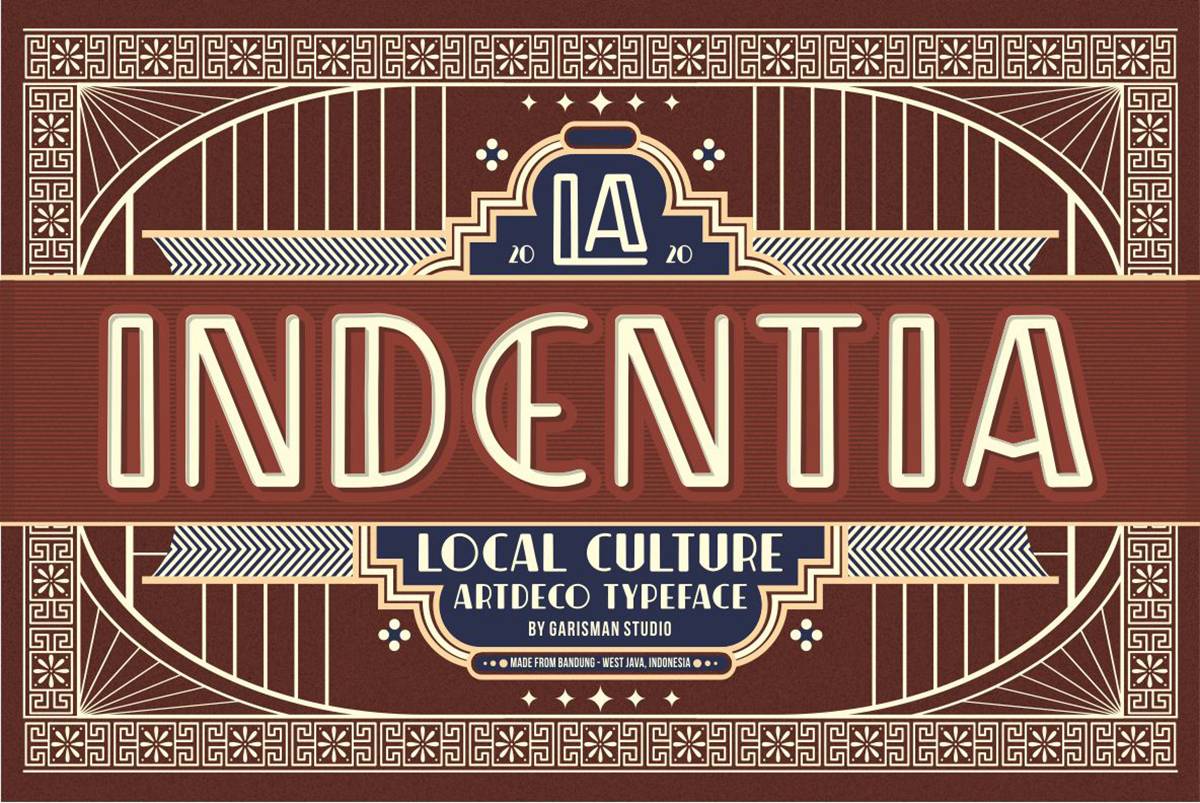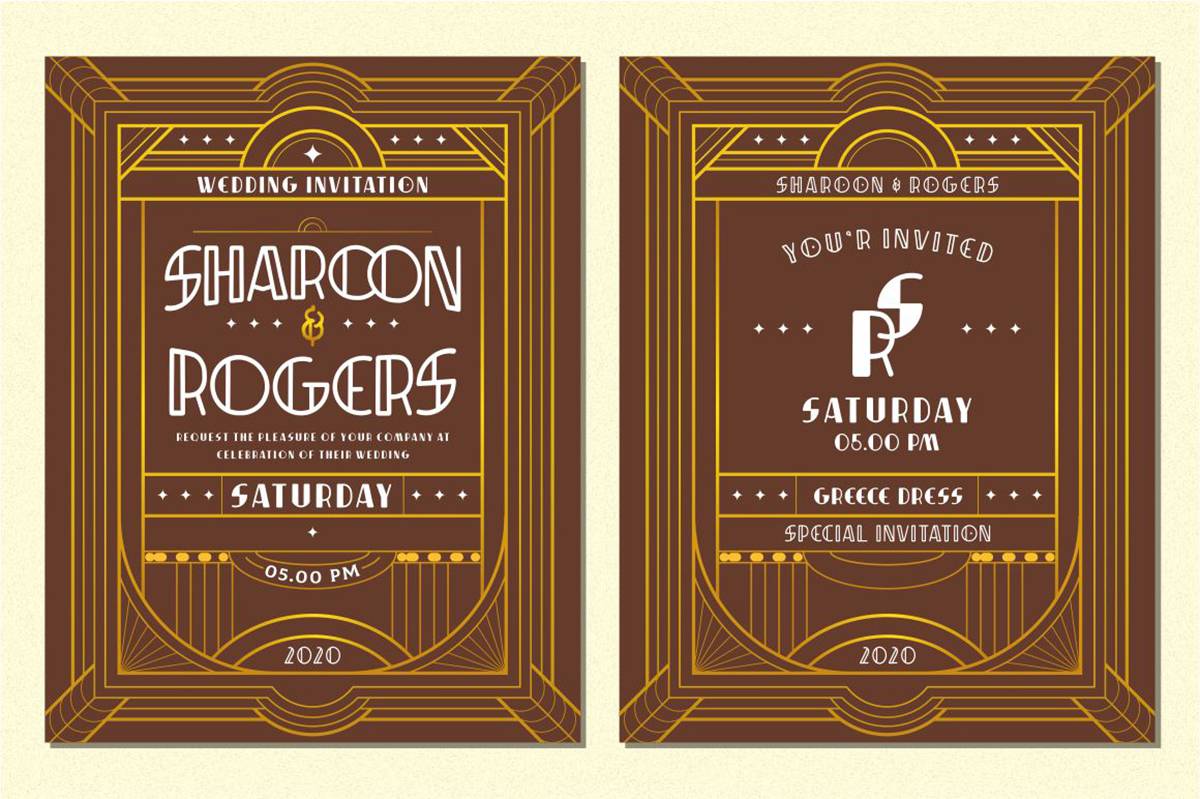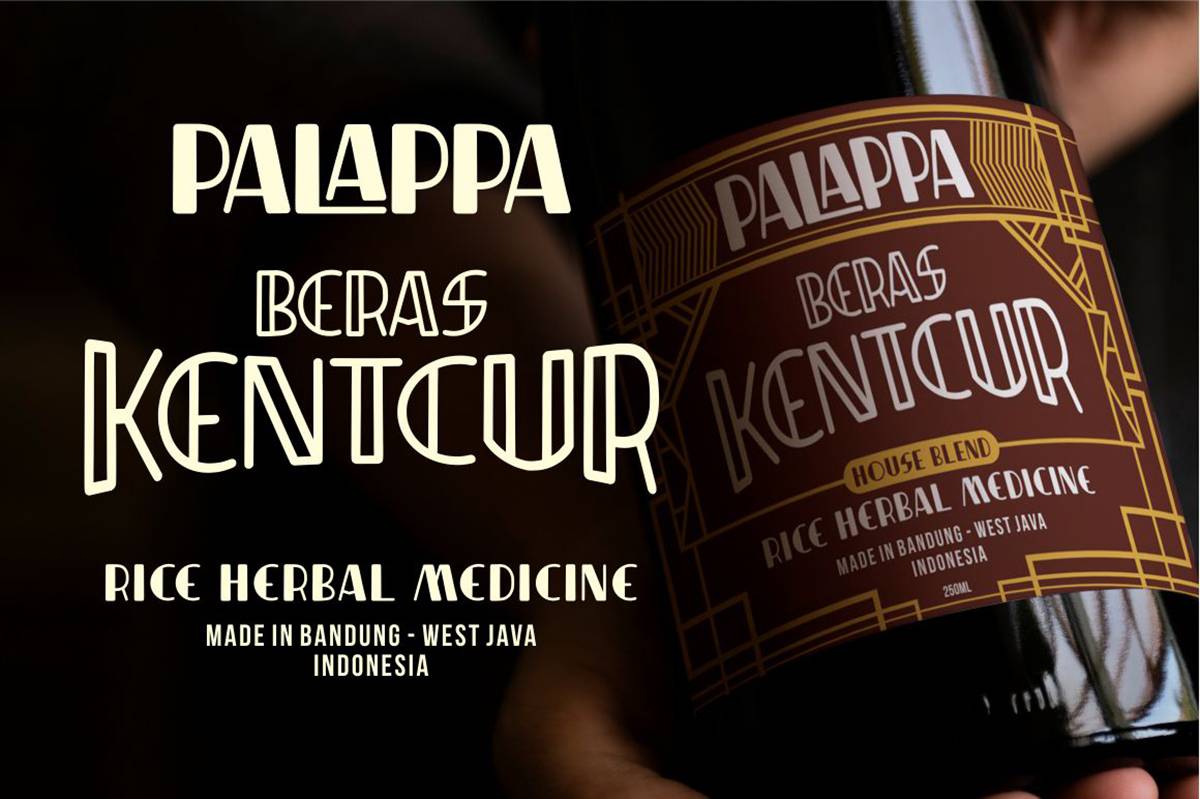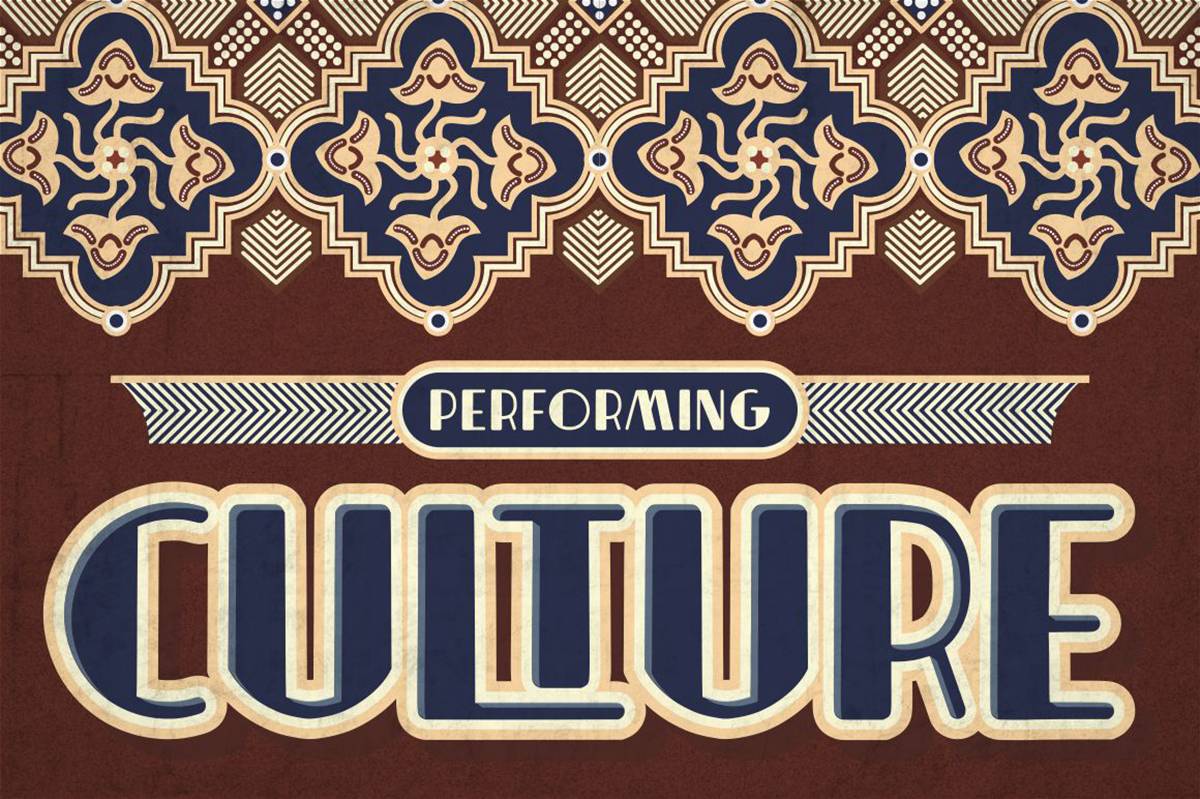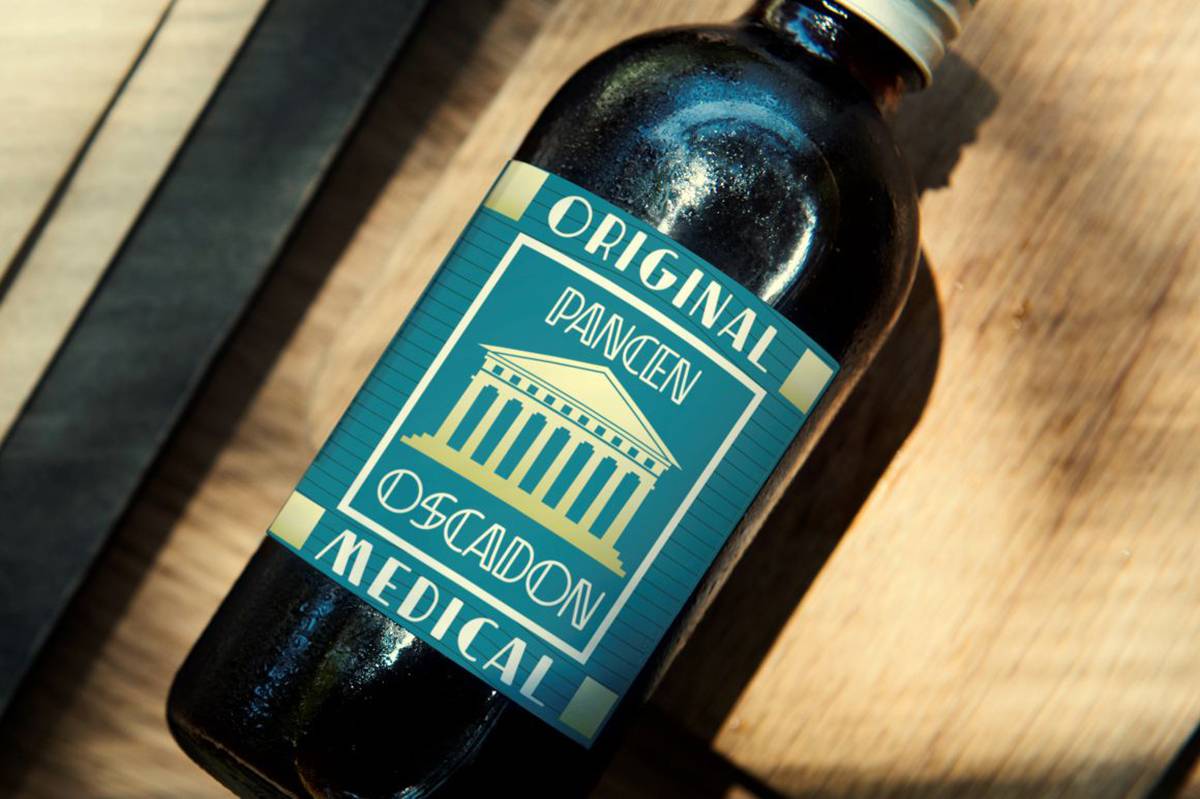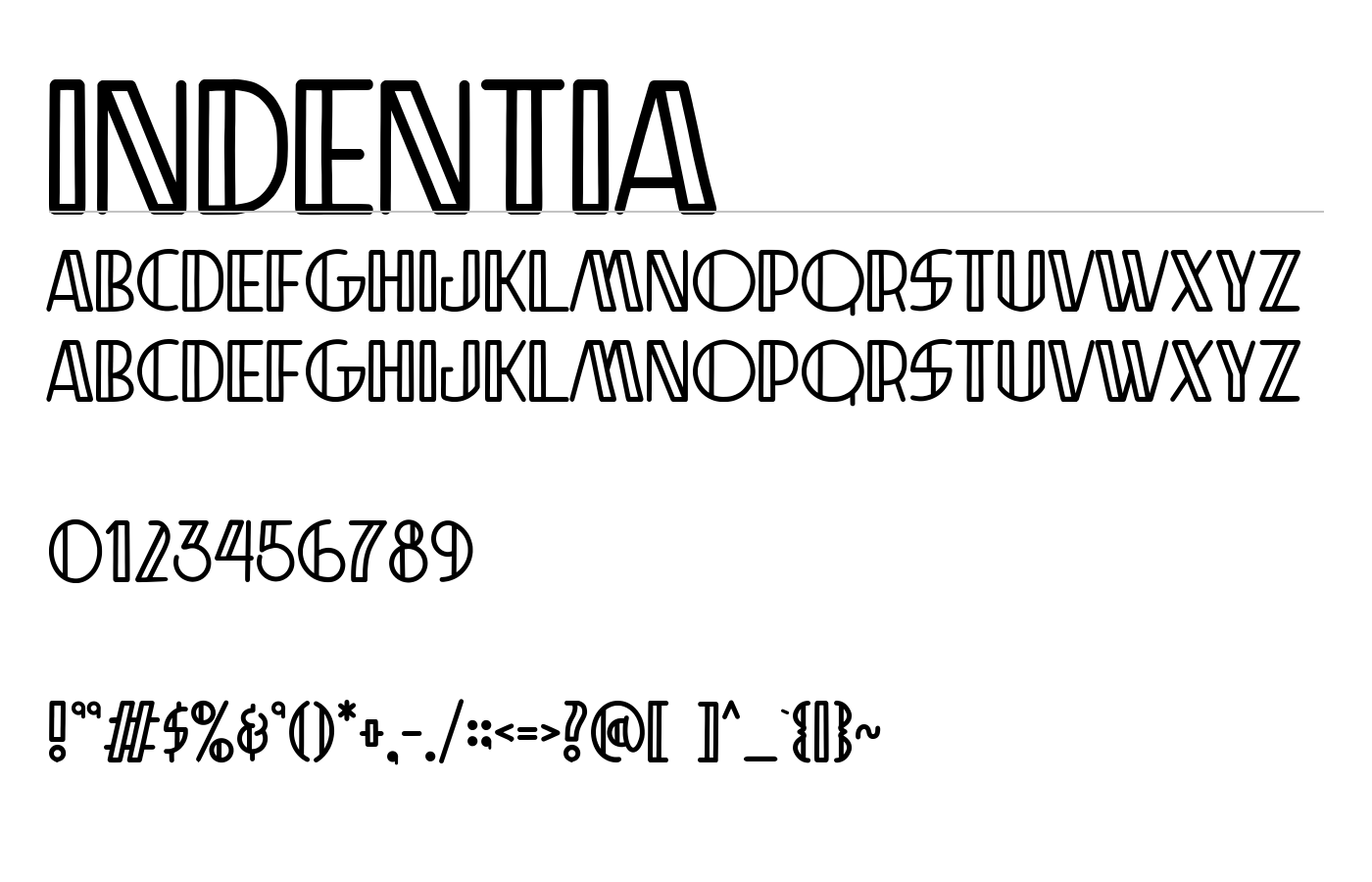
Indentia is a distinctive sans serif font with a modern, geometric style that features a tall x-height and narrow character width. Its clean lines, subtle stroke contrast, and unique letterforms—such as split curves and angled cuts—give it a futuristic and artistic personality, ideal for striking headlines, logos, or creative branding projects. This font works best where originality and visual impact are needed, making it well-suited for design-driven industries and contemporary editorial layouts.
Indentia Font
About Indentia Font
| Font family | Indentia Font |